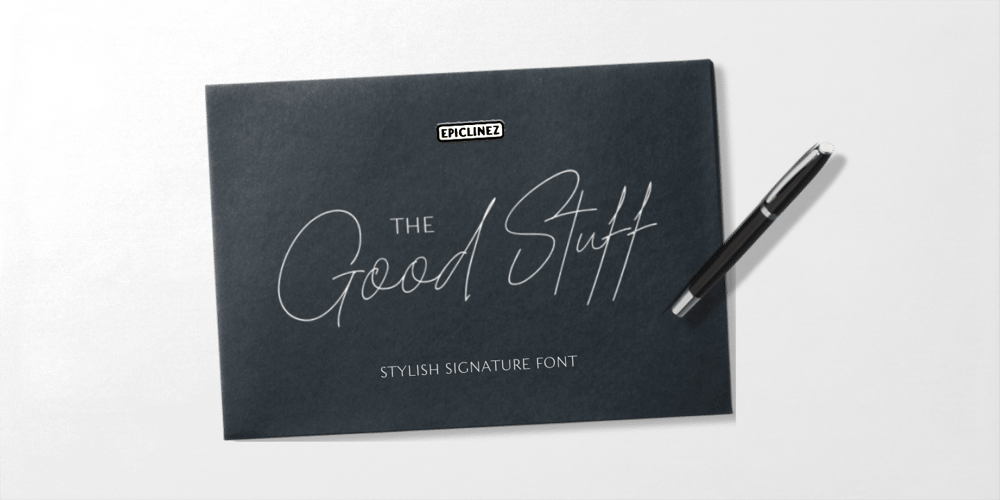
The Good Stuff
The Good Stuff font
The Good Stuff Font Family was designed by Aldy Sidik and published by Epiclinez. The Good Stuff contains 1 styles and family package options. The Good Stuff is a handwritten signature script with a natural flow. This stylish font is a good choice for high-end, sophisticated Branding design.